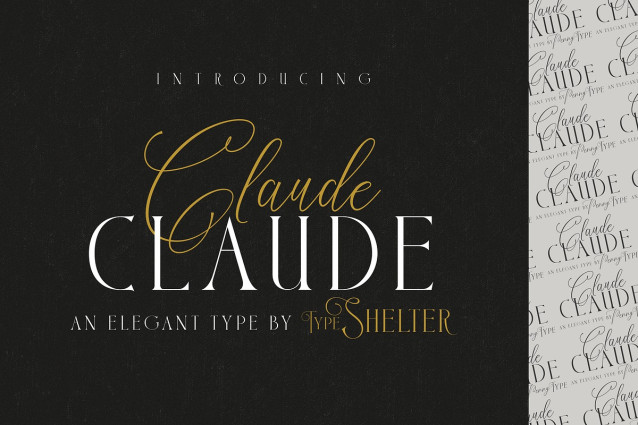
Claude Font Duo
Claude Font Duo is a elegant font duo, this font very easy to use and really playful. by combining two fonts, you can explore to create a combination that would have been nice.